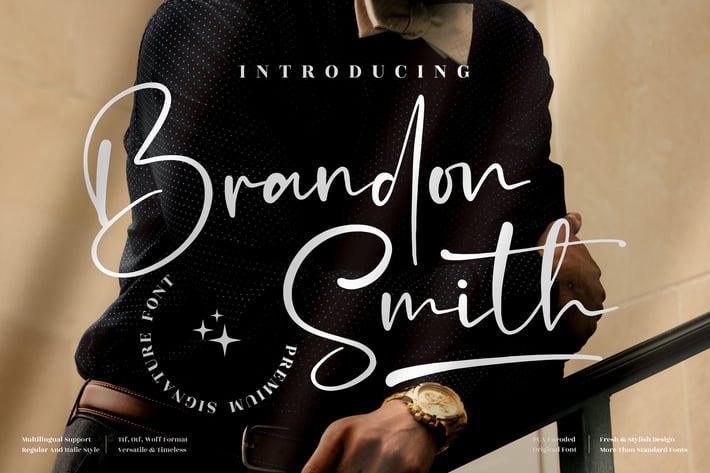
Brandon Smith Signature Font
Brandon Smith is a refined signature font designed to bring an elegant, modern handwritten touch to your creative projects. With its flowing strokes and premium character style, this typeface delivers a luxurious handwritten feel—perfect for branding, social media visuals, and high-end creative work.
Modern signature handwriting style with fluid strokes
Smooth, expressive curves for a premium aesthetic
Great readability for both digital and print media
Ideal for branding, editorial layouts, and visual storytelling
Branding & logo design
Social media content
Signature-style typography
Invitations & stationery
Business cards & packaging
Fashion, lifestyle, and personal branding
Where elegance meets expressive handwritten style.